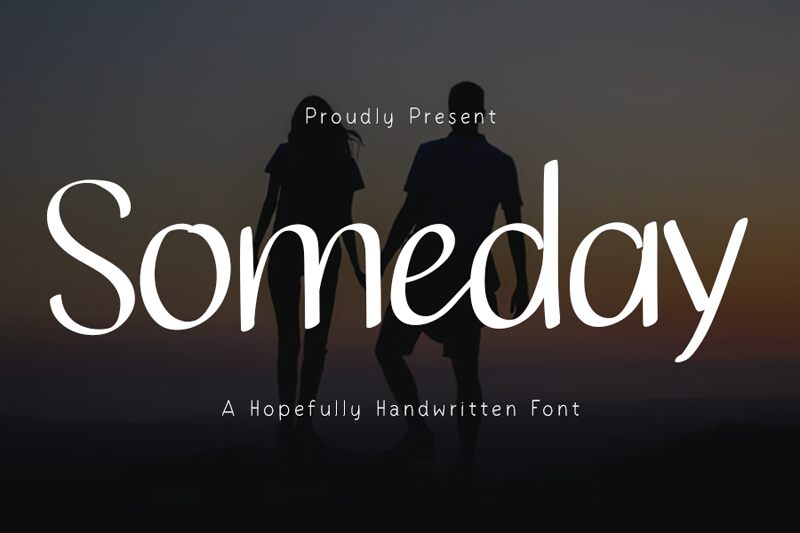
Someday
Someday, crafted by the imaginative minds at Creassion Studio, emerges as a font that captures the essence of personal touch in its semi-light and semi-condensed handwritten style. This elegant typeface boasts fluid, organic lines that mimic the spontaneity of ink on paper, offering a balance between casual charm and sophisticated design.
The aesthetic appeal of Someday lies in its ability to convey warmth and authenticity, making it an excellent choice for invitations, branding projects, and editorial designs seeking a humanistic flair. Its semi-condensed width ensures readability while maintaining an artistic presence on the page.
Perfect for designers looking to infuse their work with character and intimacy without sacrificing elegance, Someday is versatile enough to grace everything from bespoke stationery to digital graphics with its distinctively approachable style.